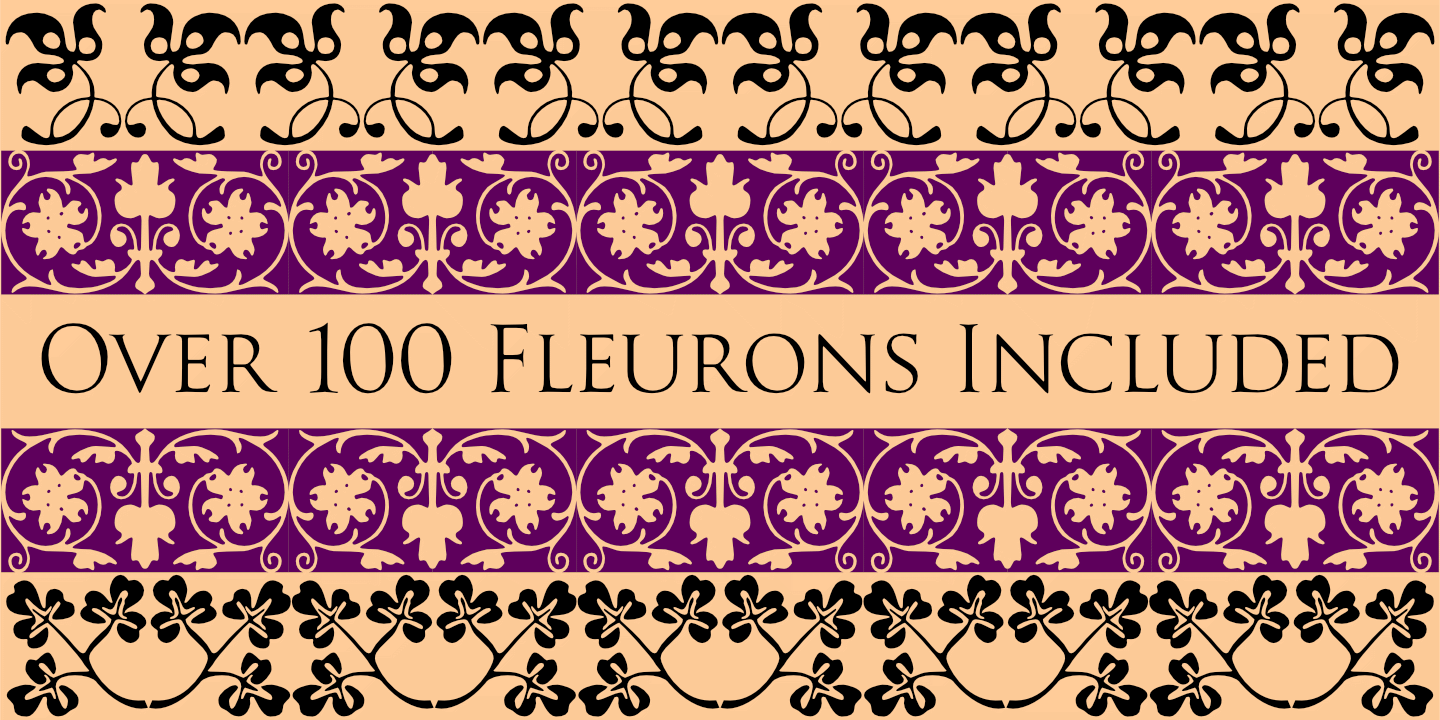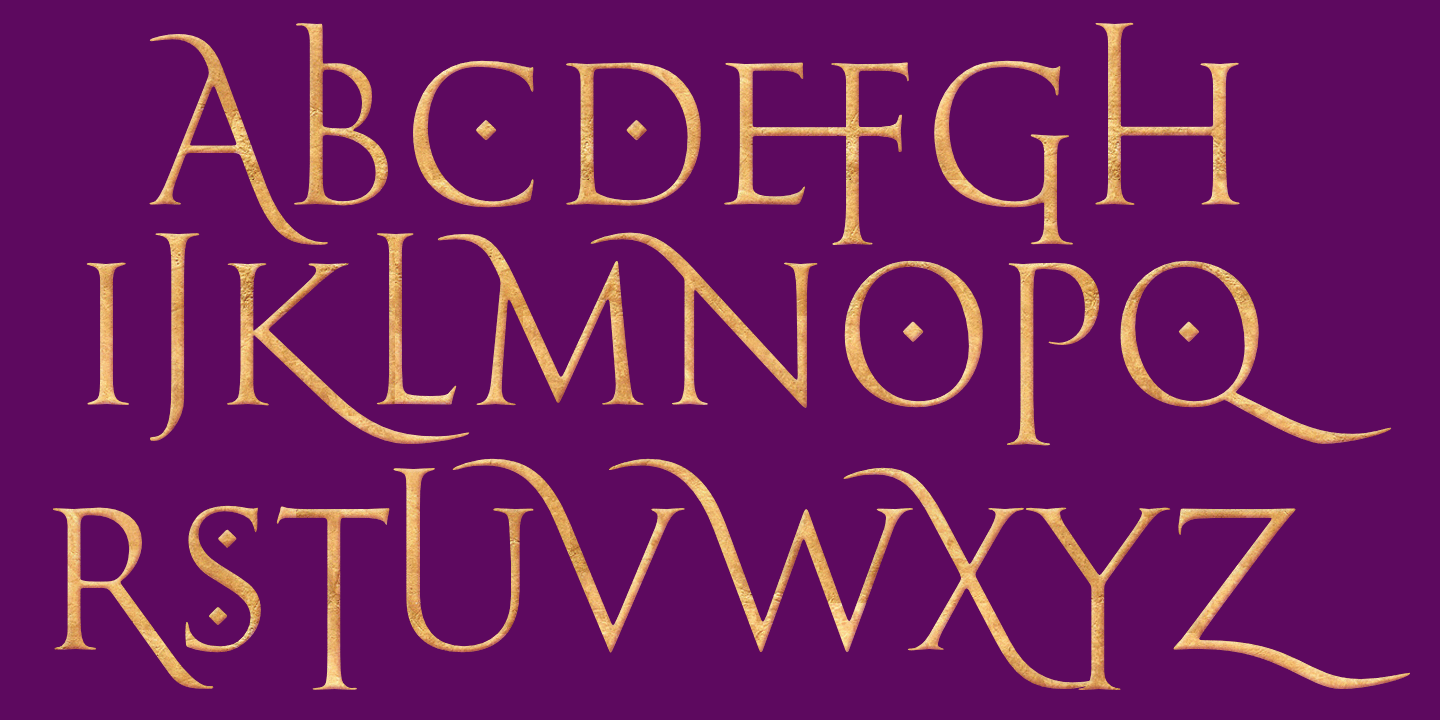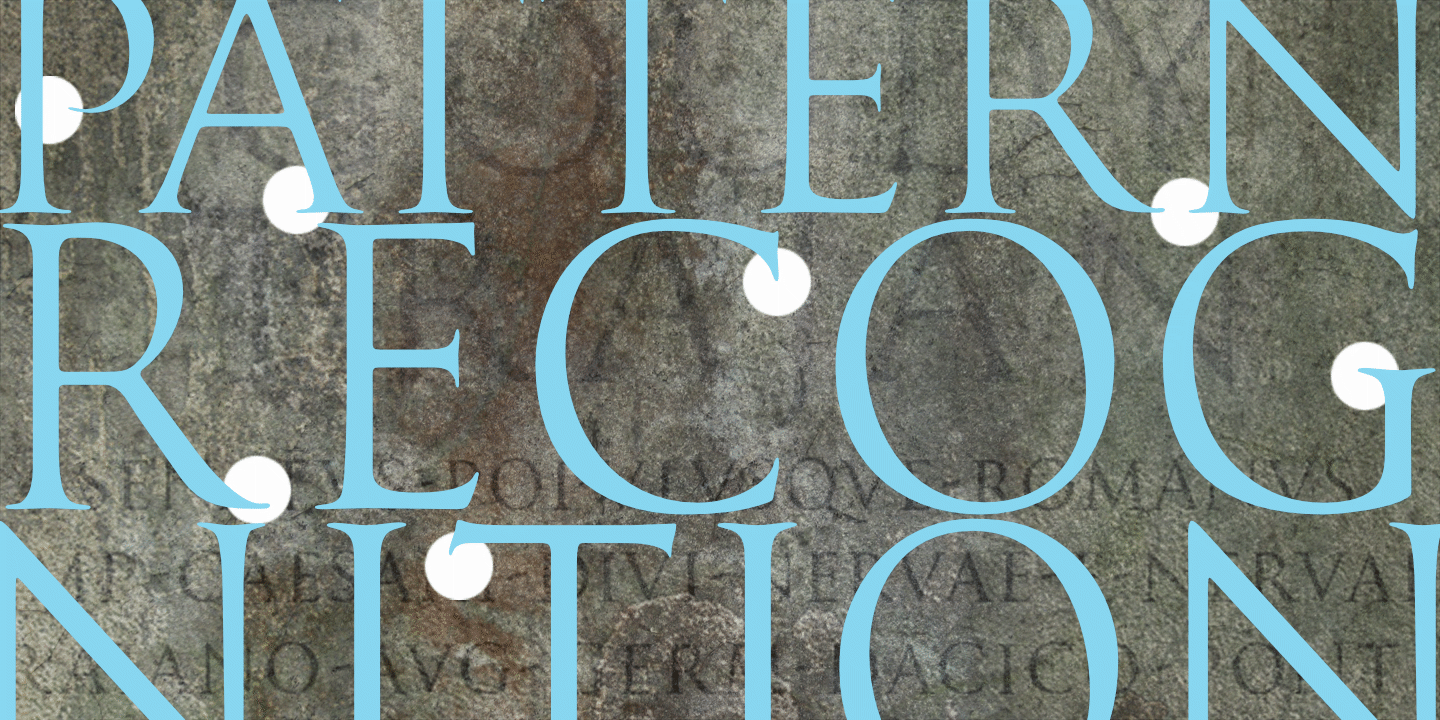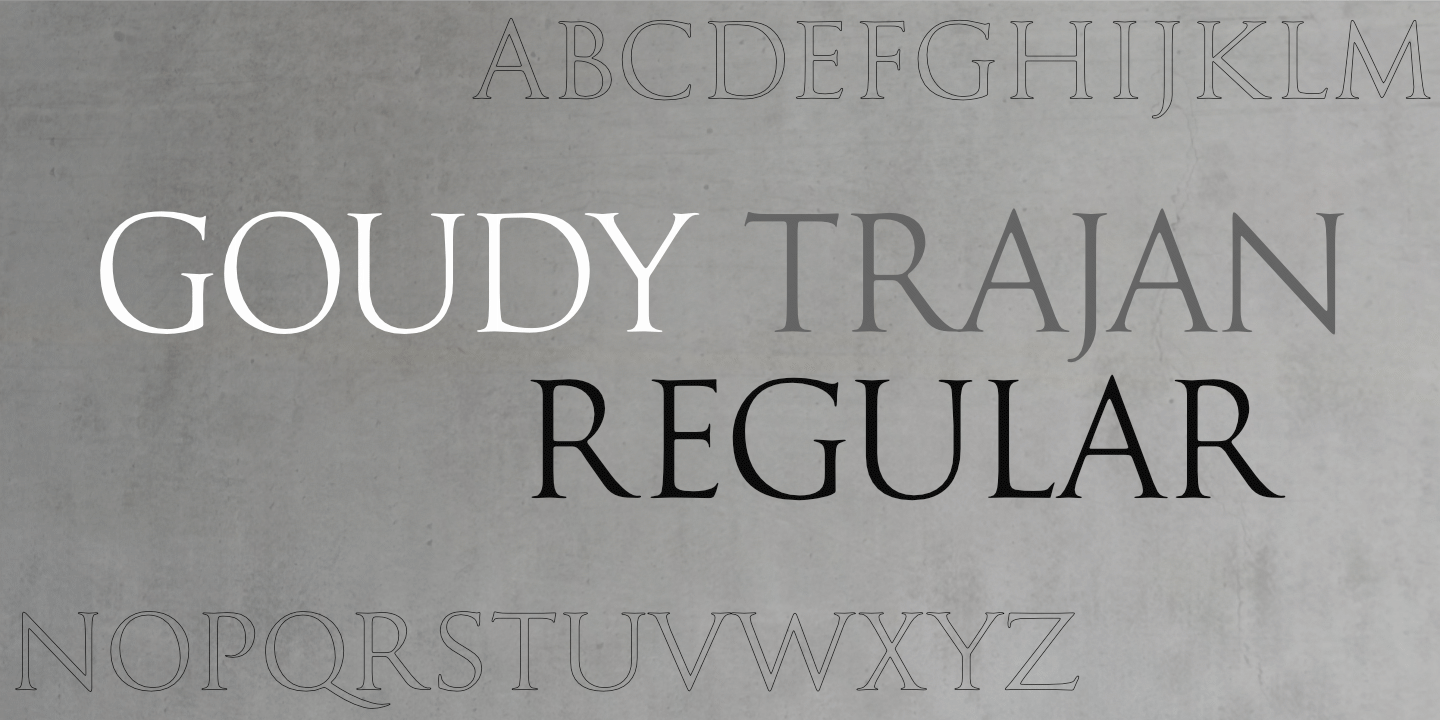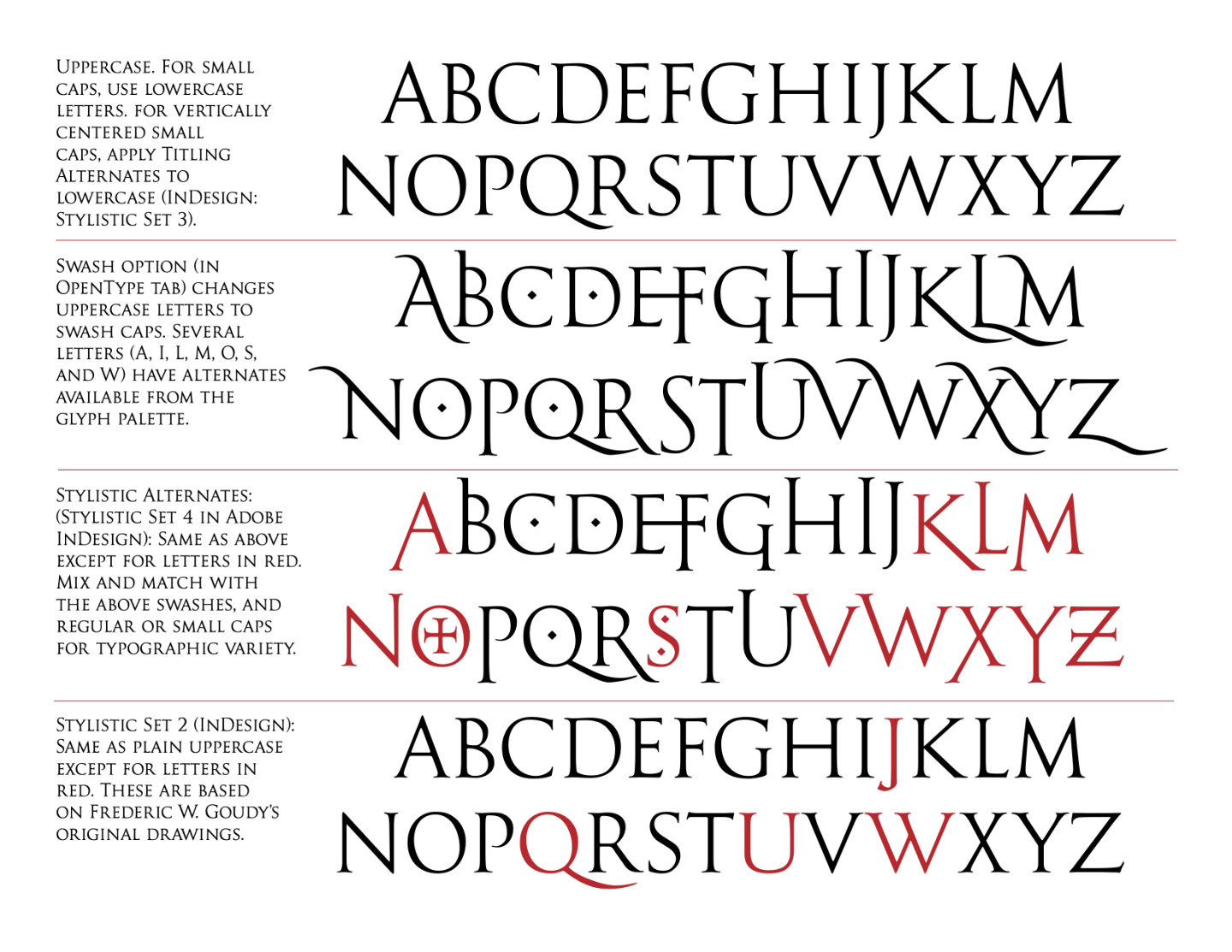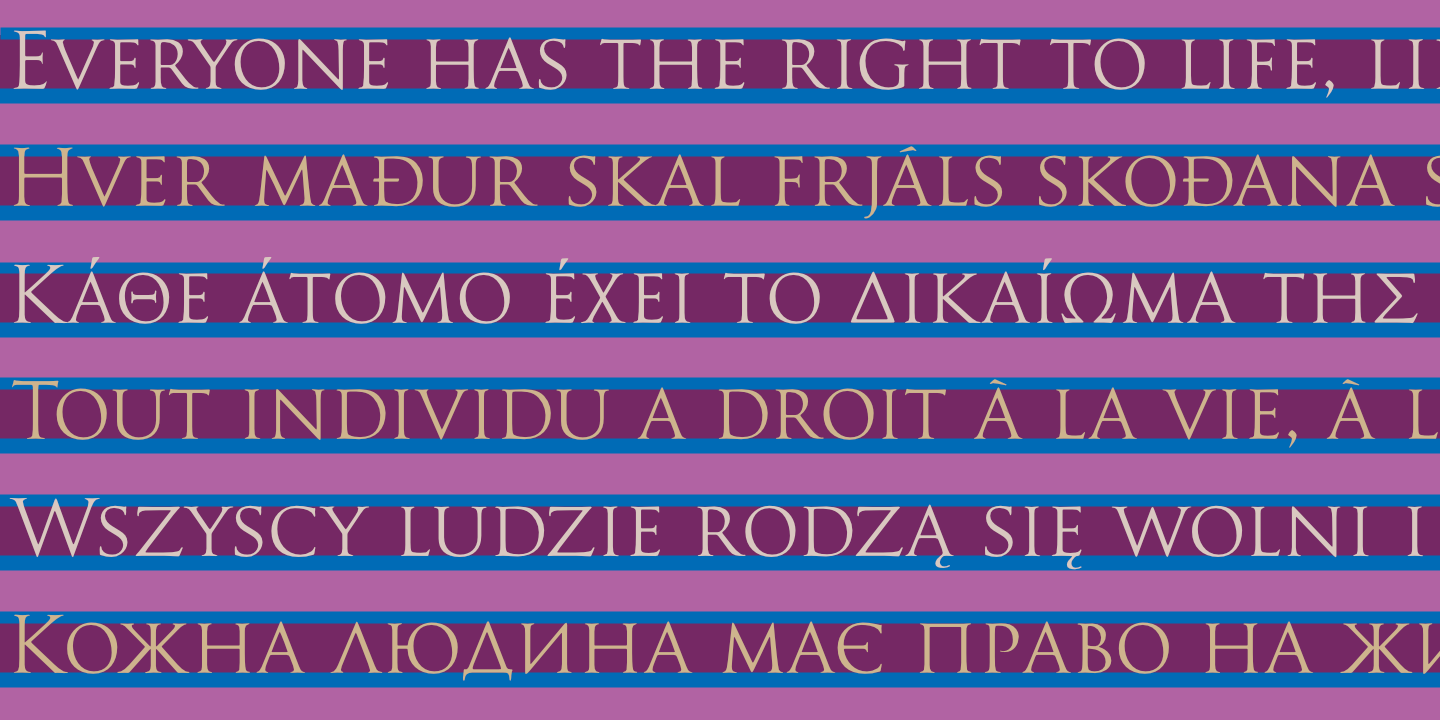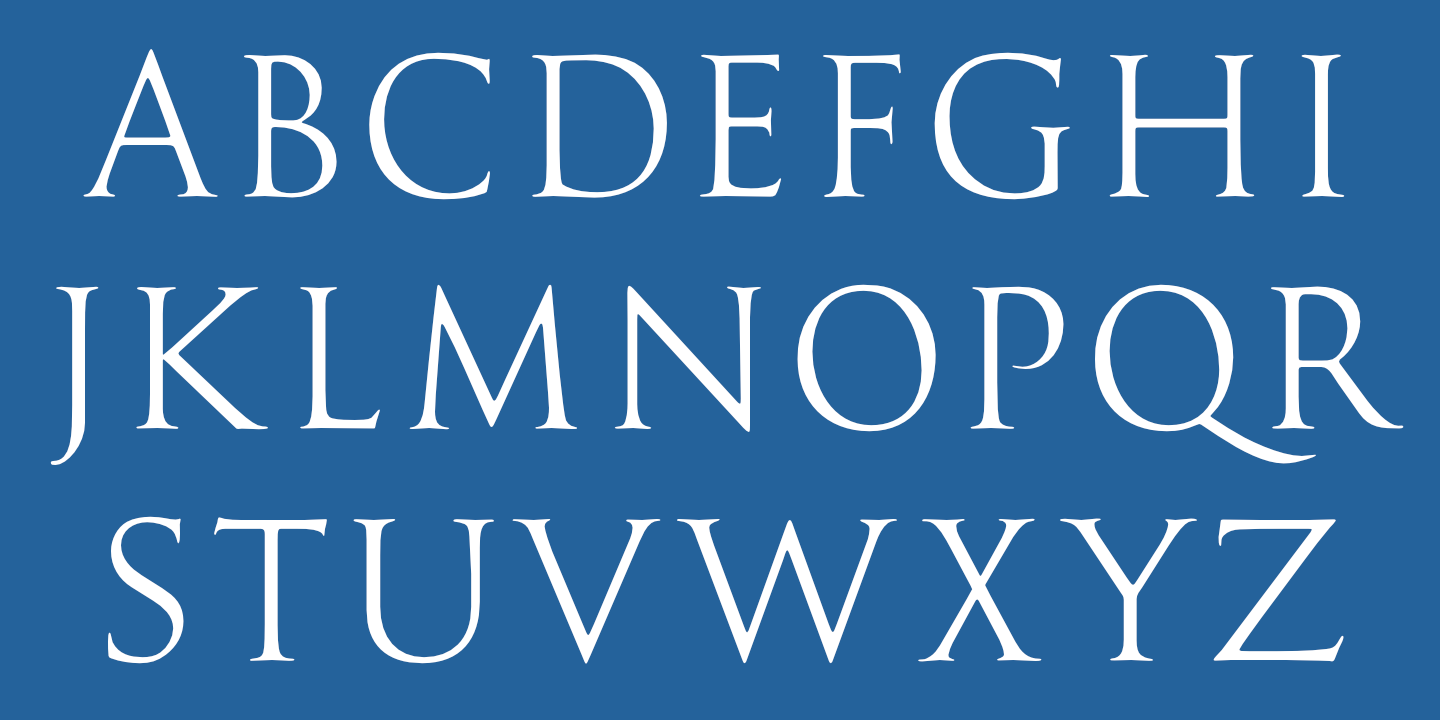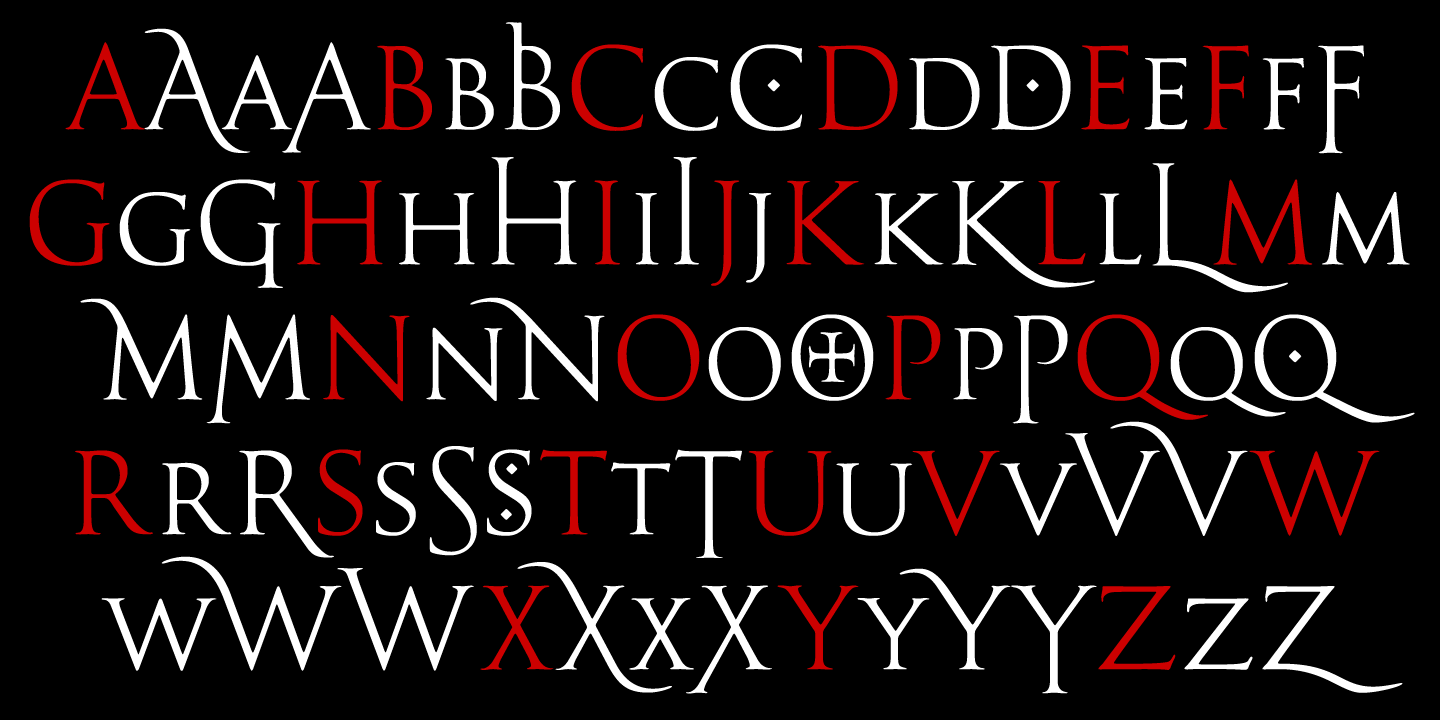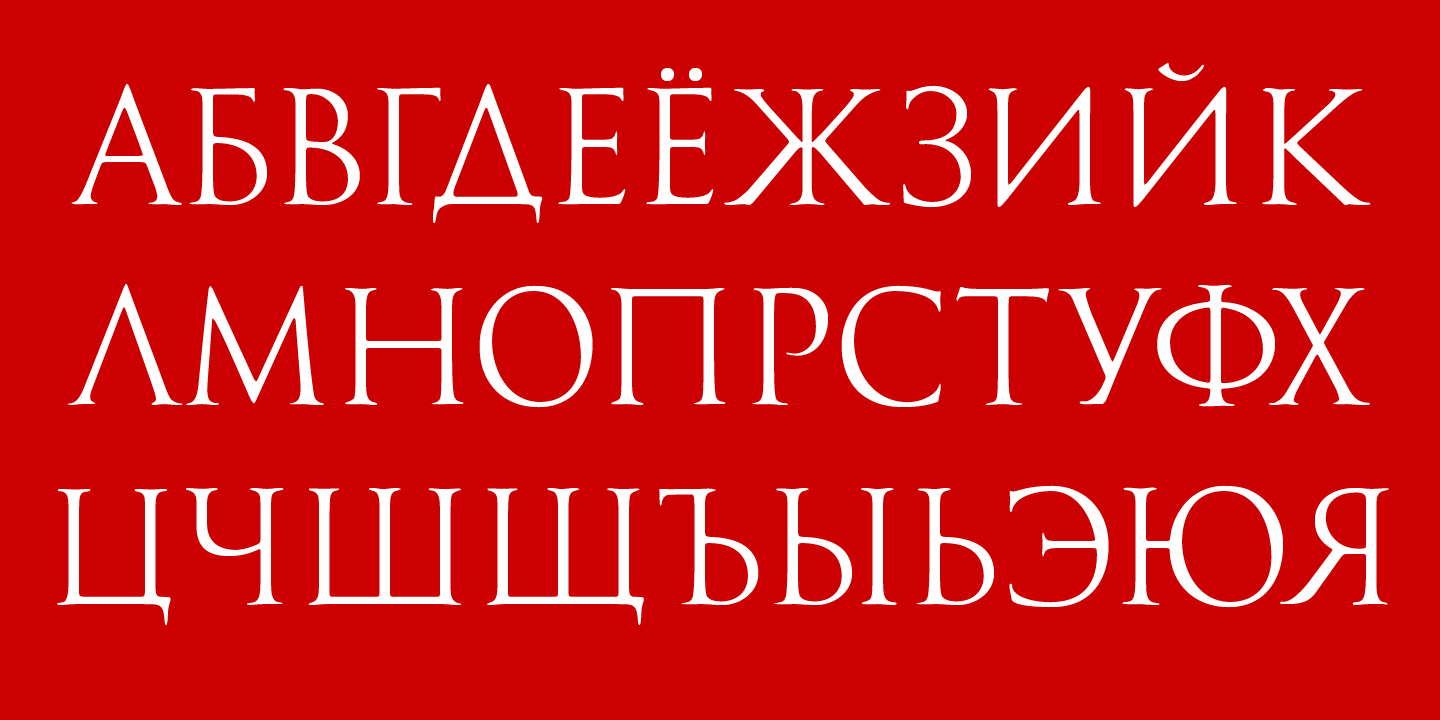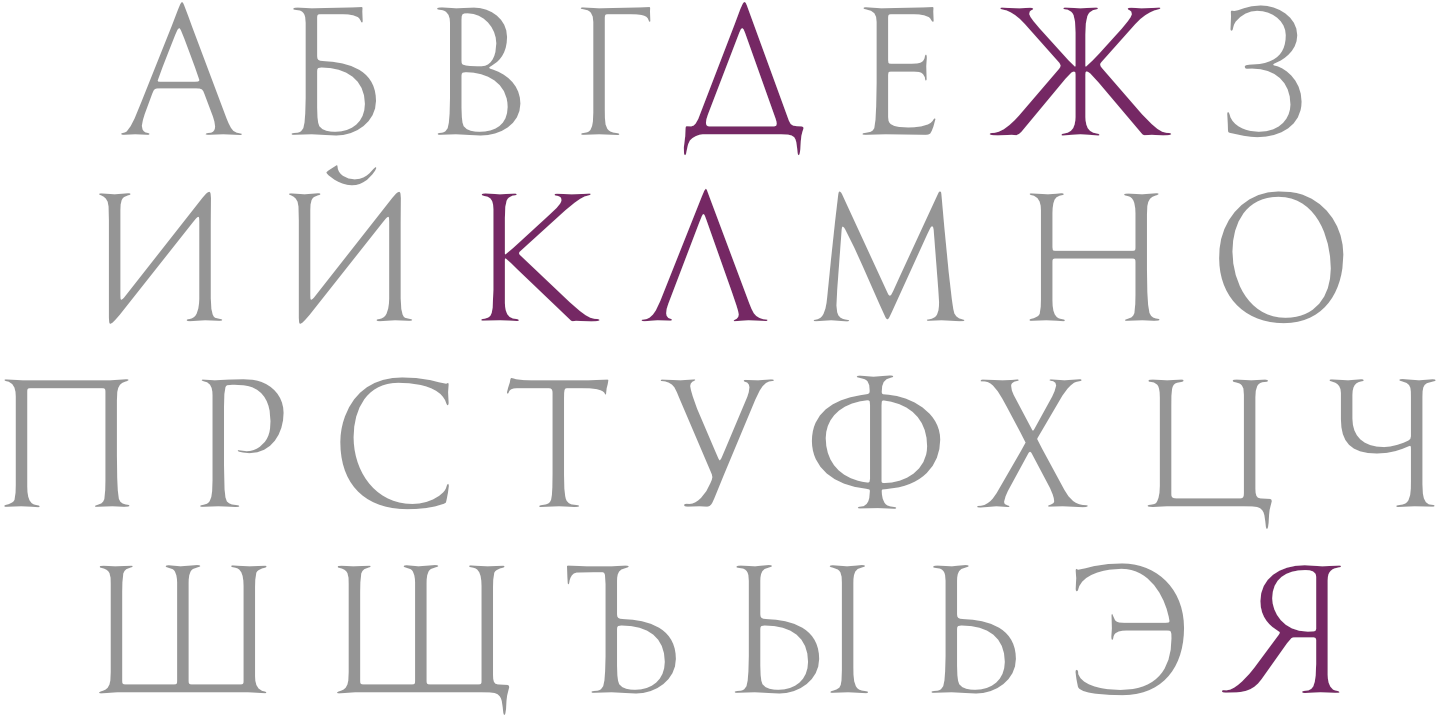
Goudy Trajan Pro Regular: Default uppercase; small caps also included in lowercase position. See Glyphs for details.
Alternates (small caps, swashes, etc.); default caps in red. Not shown: centered small caps. See Glyphs for details.
Goudy Trajan Pro Regular supports most languages that use the Cyrillic alphabet. See Glyphs for details.
Goudy Trajan Pro Regular supports modern (monotonic) Greek. See Glyphs for details.
Goudy Trajan Pro Regular: Numerals, punctuation, currency symbols, and a small sample of fleurons.
Goudy Trajan Pro Regular supports most European languages. See above and below.
Goudy Trajan Regular includes over 150 vintage fleurons.
A selection of swash caps. See Glyphs for all swash caps.
Goudy Trajan Pro includes small caps (shown here with capitals) for Latin, Cyrillic (below) and Greek.
Cyrillic small caps (shown with default capitals). See Glyphs for details.
Goudy Trajan Regular (top) and Adobe's Trajan Regular for comparison. The easiest way to tell the difference between these two fonts is to compare the serifs of the 'A' and 'M'. Note also that Goudy Trajan Regular is somewhat lighter than Adobe's Trajan Regular. Goudy Trajan is available in 3 weights; Adobe's Trajan has 2 weights. The more common spelling for the Indian city (formerly 'Bombay') is 'Mumbai', with an 'i', but this spelling above works better for comparing the fonts. Note: The 'U' above is Goudy's original design and is available as an alternate (via stylistic set 2); the default 'U' is more rounded at the bottom.
First published use of Goudy Trajan Regular by San Francisco designer, Ellen Toomey.
A selection of Greek swash caps. Goudy Trajan Pro also includes Cyrillic swash caps. See Glyphs for all swash caps.